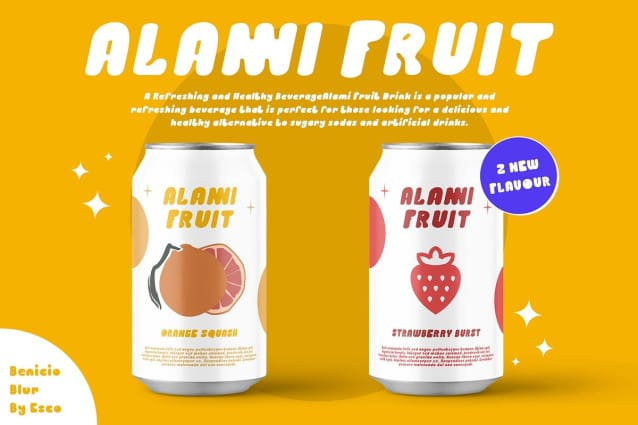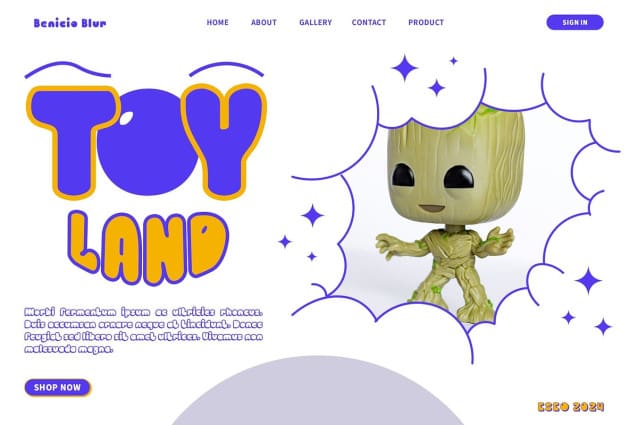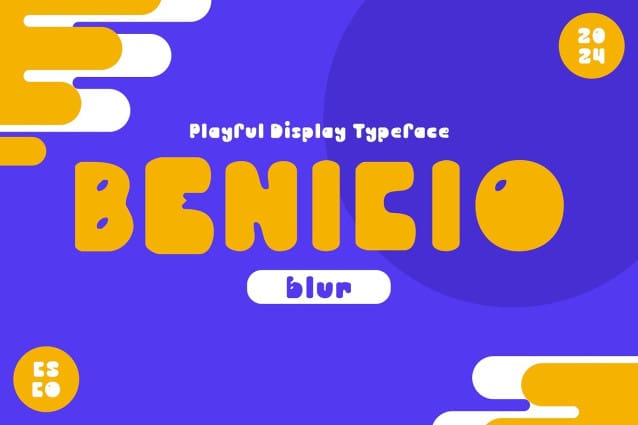
Benicio Blur Font
Benicio Blur Font is a display font with bold, bubble, and blur shapes, giving off a cute vibe. This font is typically suitable for various types of designs that seek an engaging, fun, and imaginative look. It’s perfect for projects that aim to highlight a cheerful, enjoyable, and imaginative impression.
With its bold and bubbly shapes, this font is ideal for a variety of playful and whimsical projects. Whether used in children’s books, party invitations, or toy packaging, this font adds a sense of fun and excitement to your designs.
Benicio Blur Font prioritizes cheerfulness, ensuring that your designs are both lively and captivating. Its blur effect and cute vibe create a dynamic and joyful appearance that resonates with viewers, making it perfect for projects that aim to spread happiness.
Whether you’re designing a vibrant poster, creating a playful logo, or developing a fun website, Benicio Blur Font is the perfect choice for projects that require an engaging and imaginative look. Its bold, bubble shapes ensure that your designs will always stand out and leave a lasting impression.
Bring joy and imagination to your designs with Benicio Blur Font and let your creativity shine.